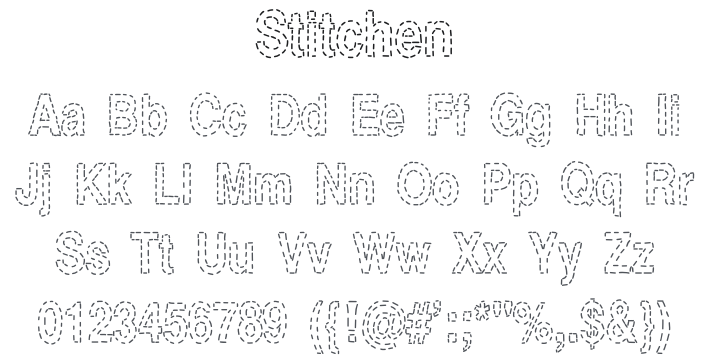
Stitchen Font
About Stitchen
Stitchen is a chunky, rounded display typeface where every letterform is rendered as a dashed outline — each stroke traced by an evenly spaced series of short dashes that perfectly mimic a sewing machine stitch line running along fabric. The bold, friendly underlying shapes make the stitched effect warm and inviting. Perfect for craft branding, sewing and fabric product labels, children's clothing, handmade goods packaging, and any design needing tactile, textile-inspired charm.